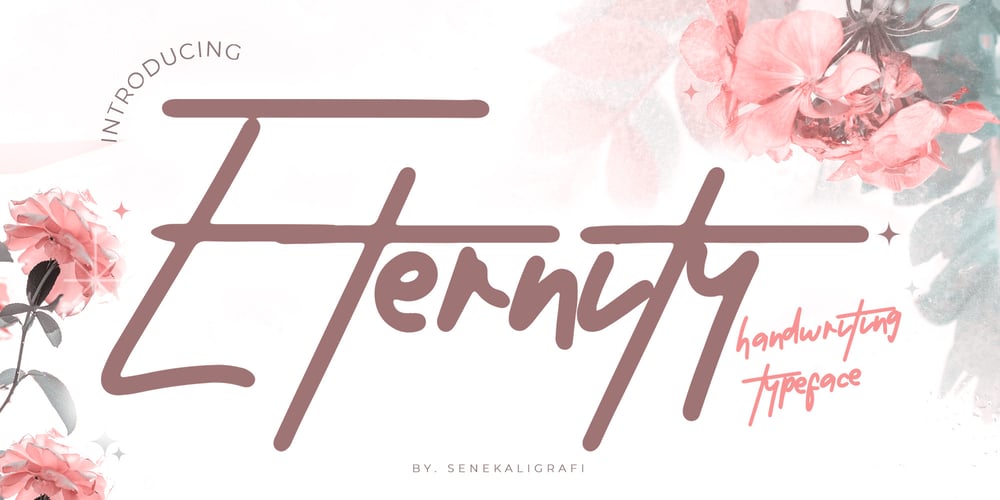
Eternity Font Family was designed by Muhammad Helmi and published by Senekaligrafika. Eternity contains 1 styles and family package options. “Eternity” is a font with hard strokes and a signature style that instantly evokes a romantic sensation. With this font, you can take your creative projects to the next level.Whether it’s for everyday use or special occasions such as weddings, Valentine’s Day, greeting cards, headings, flyers, product packaging, book covers, printed quotes, logos, and more, “Eternity” will help you create unique and touching typographical designs. It’s a versatile and modern font that offers endless possibilities to the user.